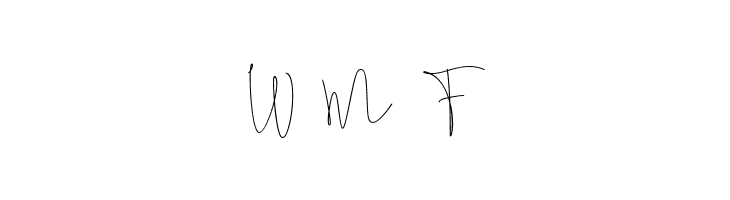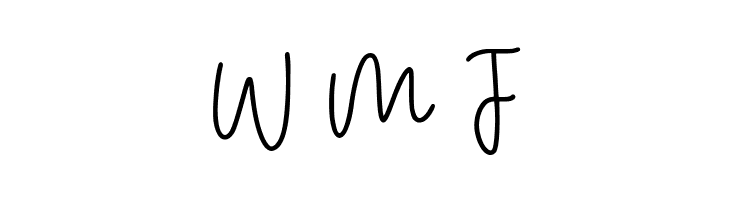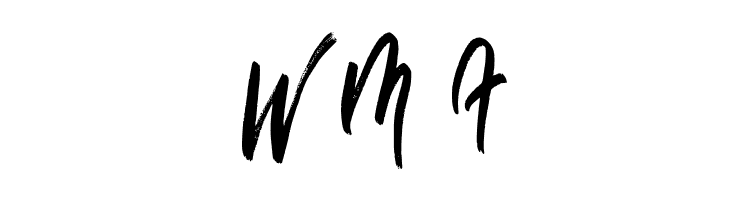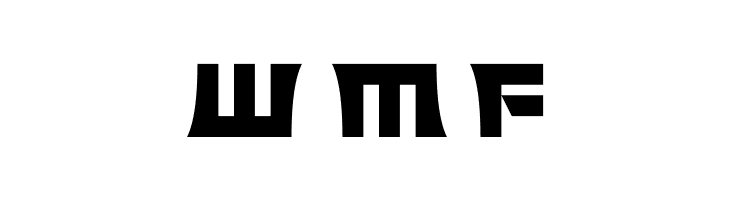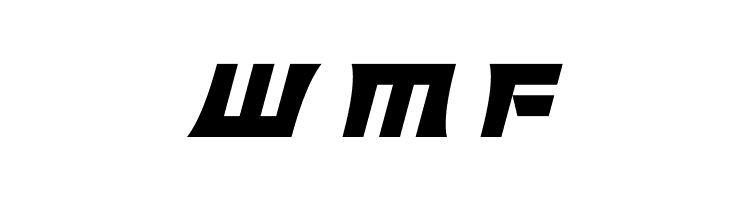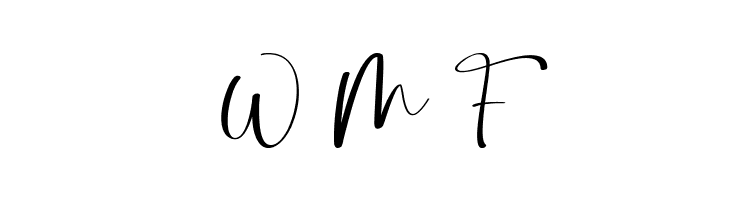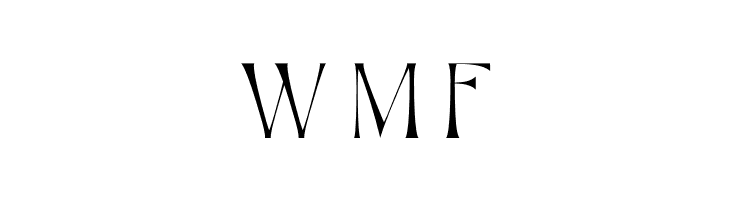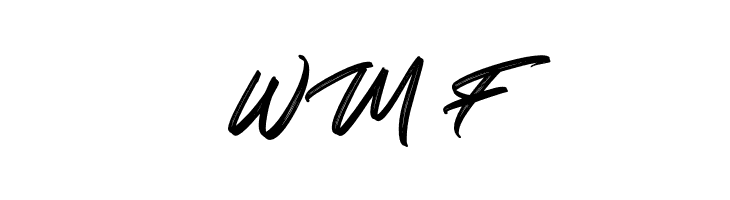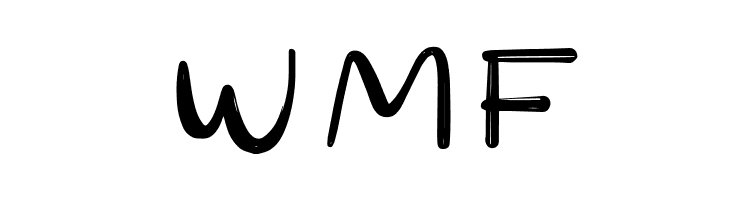
A thin, handwritten font with a casual and elegant style.
A playful, handwritten font with fluid strokes and a casual style.
A bold, expressive handwritten font with dynamic strokes and a textured look.
A bold, geometric font with uniform stroke width and modern style.
A bold, futuristic font with sharp angles and geometric shapes, ideal for sci-fi themes.
A bold, italic, futuristic font with sharp, angular lines and a modern style.
A lively and elegant handwritten font with fluid, dynamic strokes.
A whimsical and playful font with tall, narrow characters and dynamic stroke variations.
A dynamic, expressive handwritten font with fluid strokes and medium contrast.
A playful, handwritten font with bold, flowing characters.